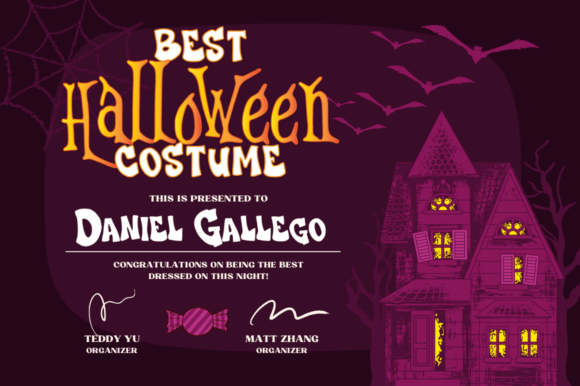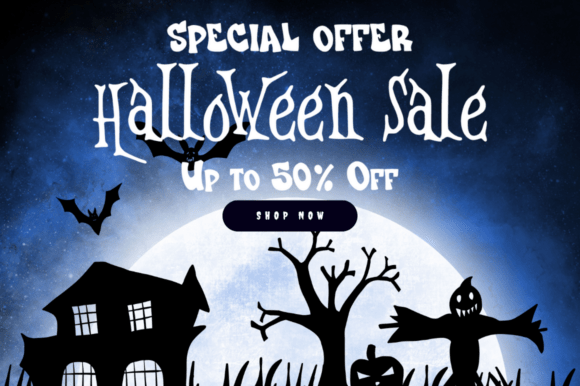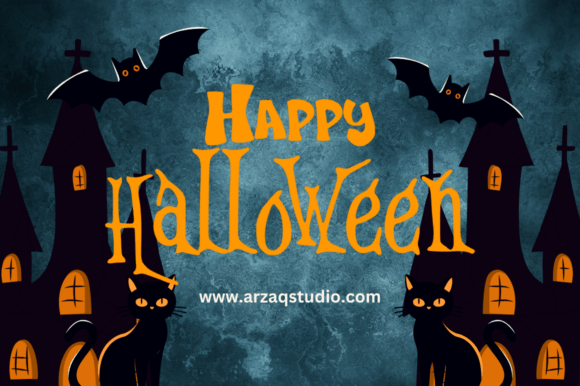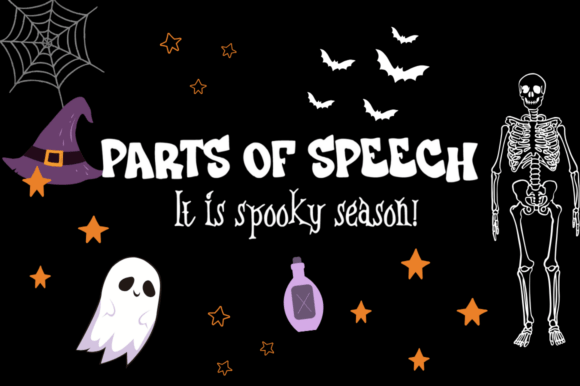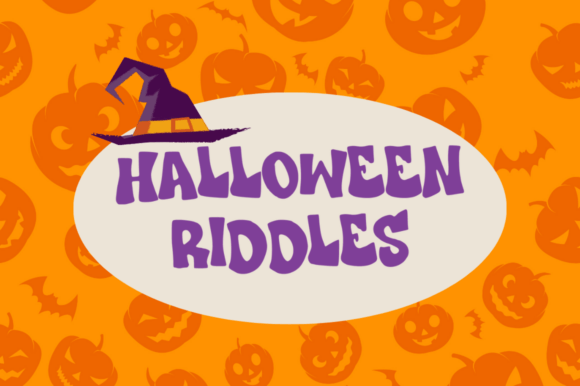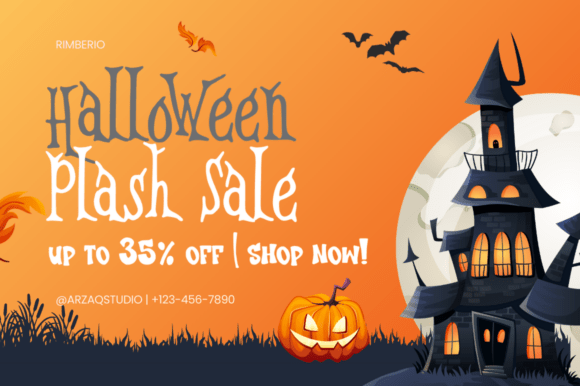
Unleash Your Creativity with the Blaze Punch Font Duo
Have you ever been brainstorming a new design project, pouring over inspiration boards and sketching out ideas, only to have that one perfect font come to mind and suddenly bring everything together? That’s exactly what happened to us when we stumbled upon the Blaze Punch Font Duo – a bold and playful typeface combination that’s guaranteed to add energy and character to your creative projects.
This dynamic duo features a chunky, fun display style paired with a quirky, hand-drawn gothic style, making it perfect for posters, headlines, branding, and eye-catching designs. Whether you’re looking to create fun and festive designs or something spooky and eerie, the Blaze Punch Font Duo is a versatile choice that’s sure to make your text stand out with style and personality.
Key Features of Blaze Punch Font
- Font Family: Blaze Punch Font is a unique, bold display font designed for headings and titles.
- Unique Characteristics: Blaze Punch Font features a distinctive, energetic design with bold lines, rounded edges, and a dynamic feel, making it perfect for creative and modern designs.
Blaze Punch Font Review
Overall, I’d say the Blaze Punch Font is an interesting choice for designers looking for a unique sans-serif font. ✨ Here are some of its strong points:
- Expressive lines: The Blaze Punch Font features bold, expressive lines that give it a distinctive look.
- High contrast: The font’s high contrast between thick and thin lines creates visual interest and makes it stand out.
- Good for headlines: The Blaze Punch Font is well-suited for headlines and titles due to its bold and eye-catching nature.
- Not suitable for body text: The Blaze Punch Font’s bold lines can be overwhelming when used for large blocks of text.
- Lack of legibility: Some characters, such as the lowercase “a” and “e”, can be difficult to read due to their unique shapes.
- May not be suitable for digital use: The font’s bold lines can become pixelated or distorted when used on digital devices.
Overall, the Blaze Punch Font is a good choice for designers who want to add a touch of personality to their designs, but it may not be the best fit for every project.
Getting the Most Out of Blaze Punch Font
Blaze Punch Font is a bold and eye-catching font that works well for headings and titles. To get the most out of it, use it sparingly to create visual interest and emphasis.
Pair Blaze Punch Font with a clean and simple font for body text to create a striking contrast.
Blaze Punch Font is commonly used for:
- Brand logos and identity
- Marketing materials and advertisements